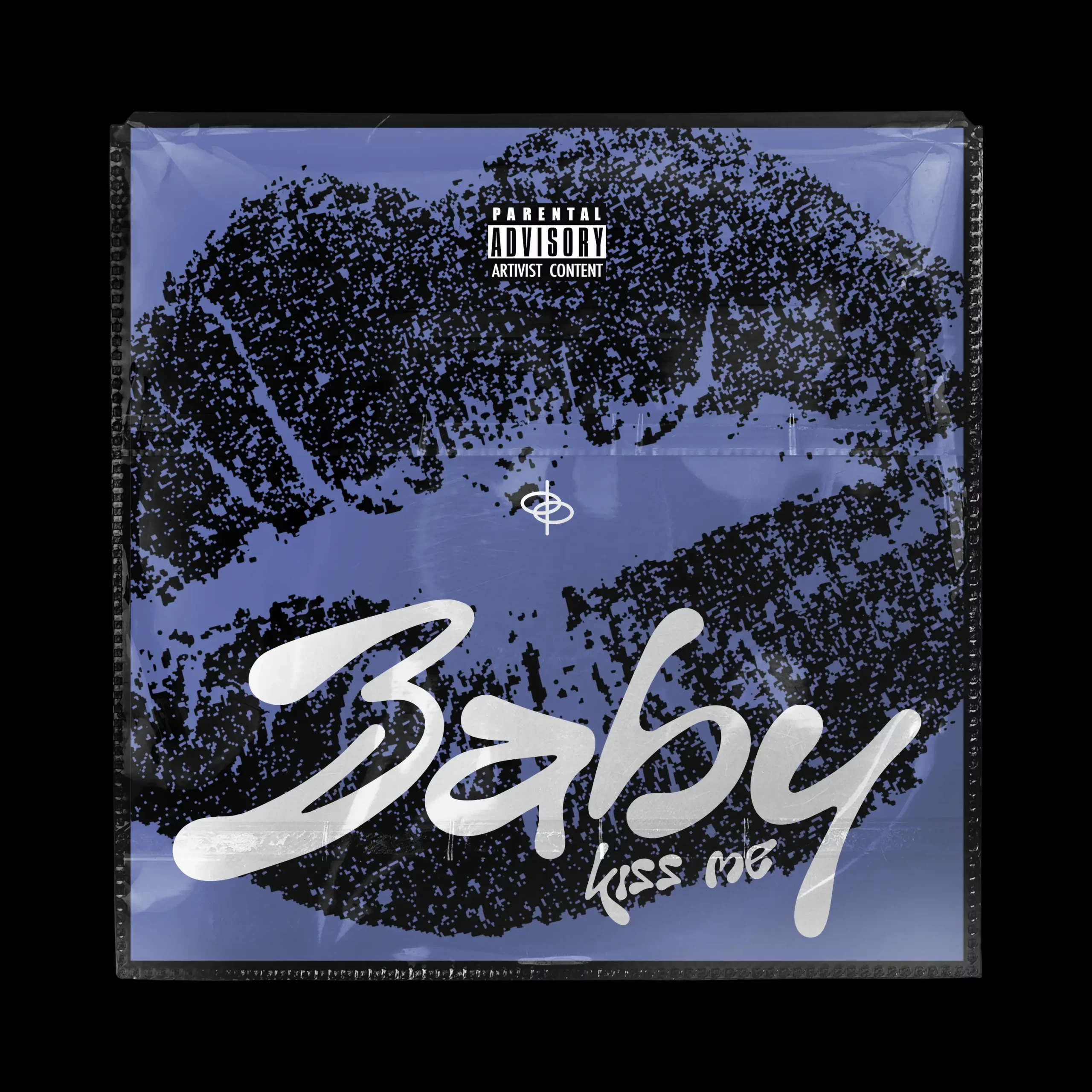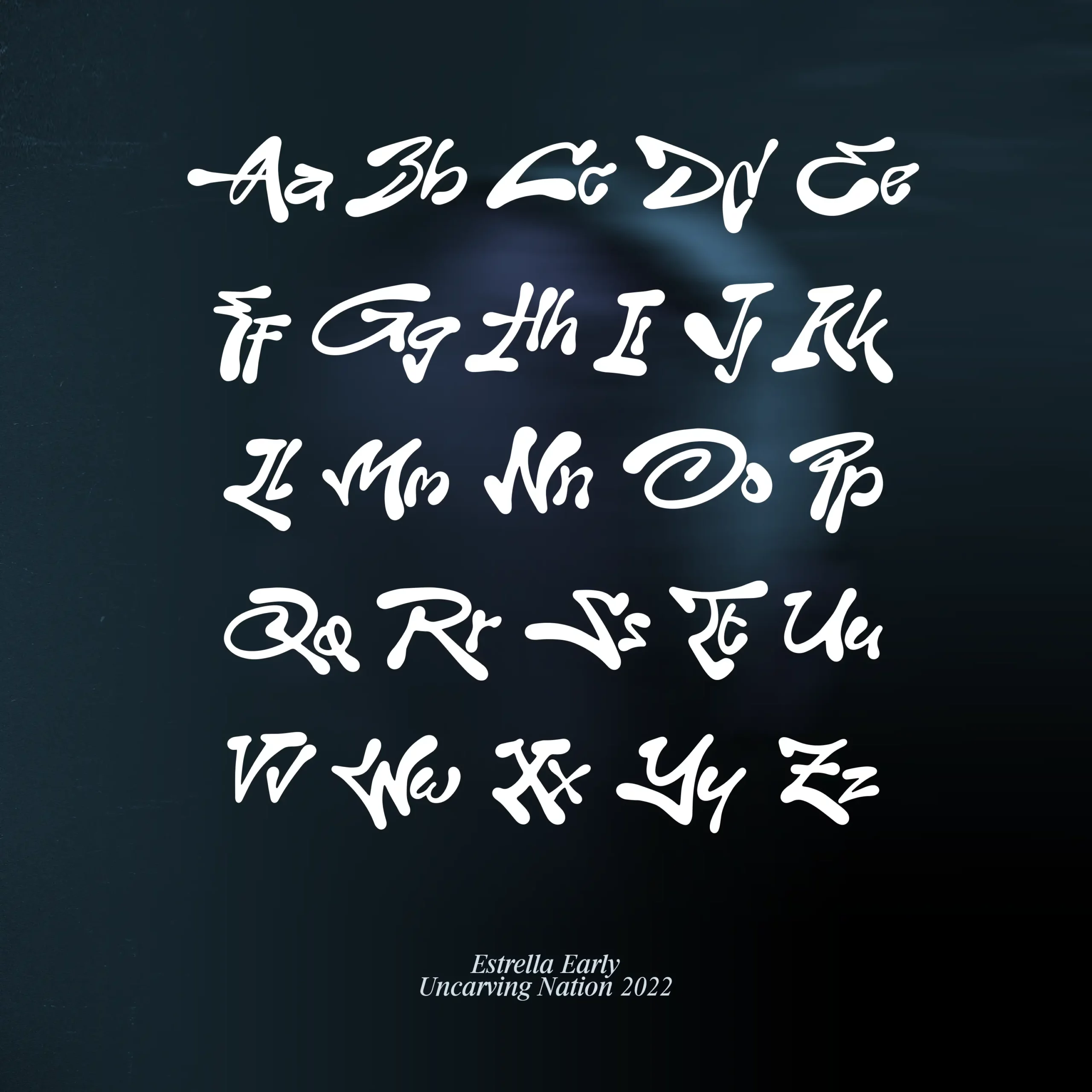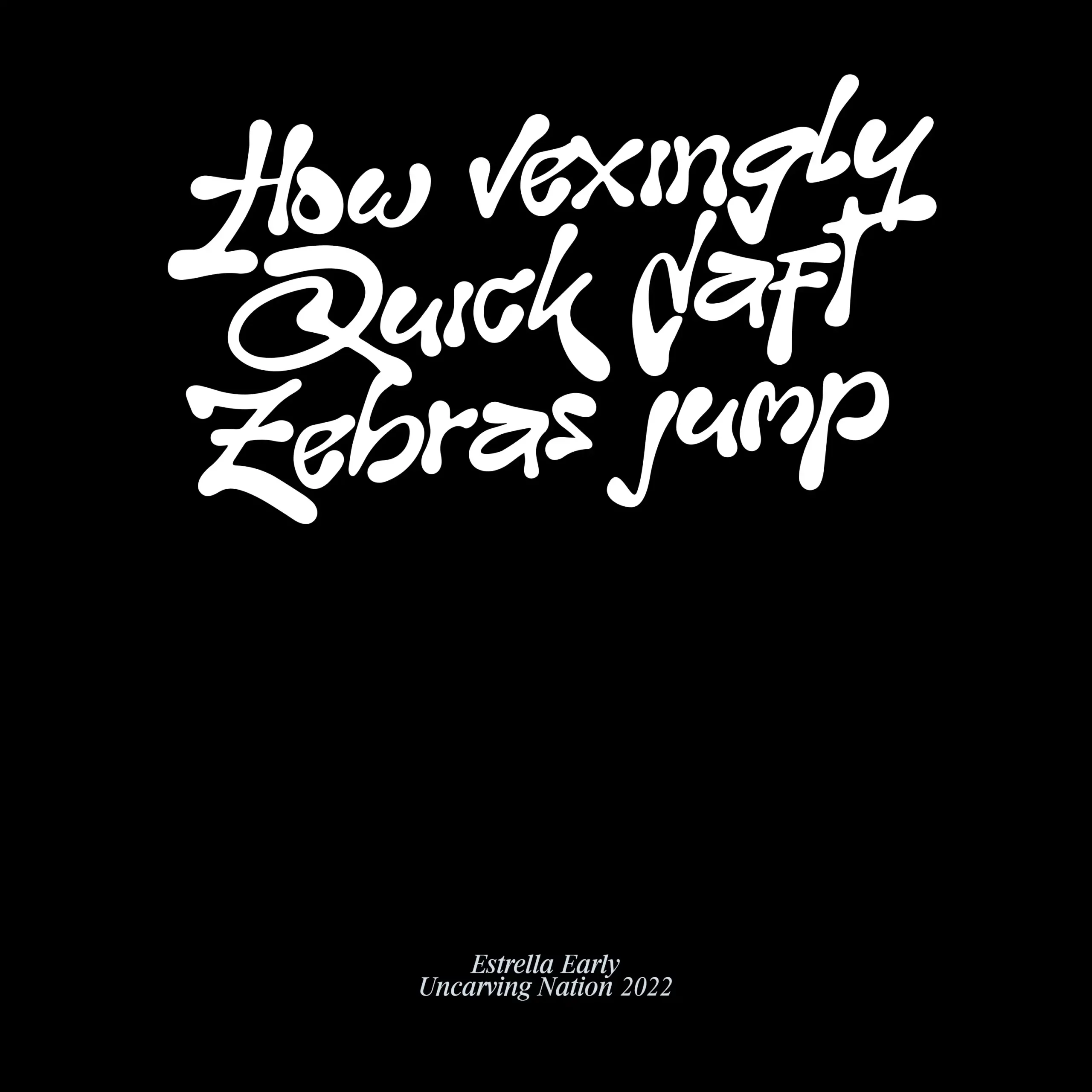
Introducing the charming Estrella – Display Font! 🌟 This delightful font is perfect for adding a touch of elegance and creativity to your projects. As a digital download, you can access it instantly and start using it right away! 🎉
Estrella is a beautifully crafted display font designed by uncarving, making it an ideal choice for graphic designers and typography enthusiasts. Its modern and stylish appearance brings a unique flair to any design, whether it’s for print or digital media. With Estrella, your creative possibilities are endless!
- Unique Design: Stand out with a font that has a distinct personality, perfect for branding and creative projects.
This font is perfect for:
- Graphic designers looking to add a creative touch to their projects
- Typography enthusiasts who appreciate modern and stylish typefaces
- Anyone in need of a decorative font for branding, invitations, or social media graphics